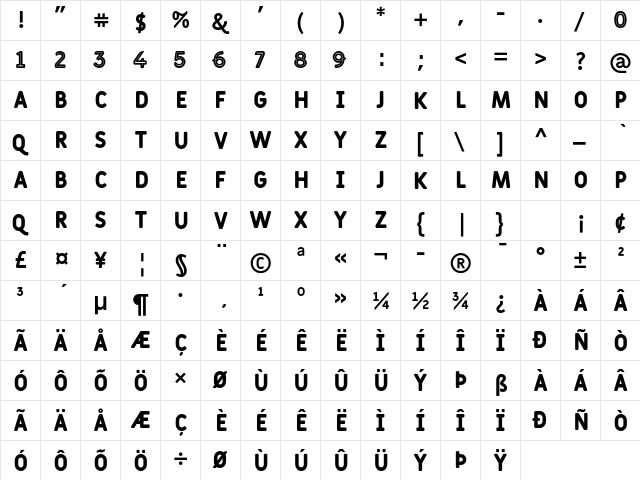
Fulbo Tano
| Foundry | Hagilda |
| Designer | Alejo Bergmann |
Design Context for Fulbo Typeface
Fulbo offers clean, dependable letterforms without strong stylistic allegiance, making it a practical choice for designers who need flexibility.